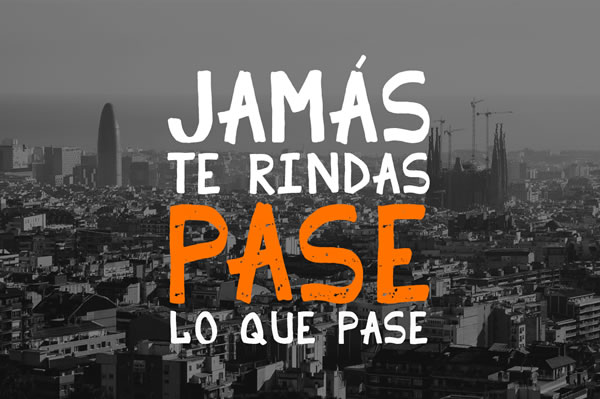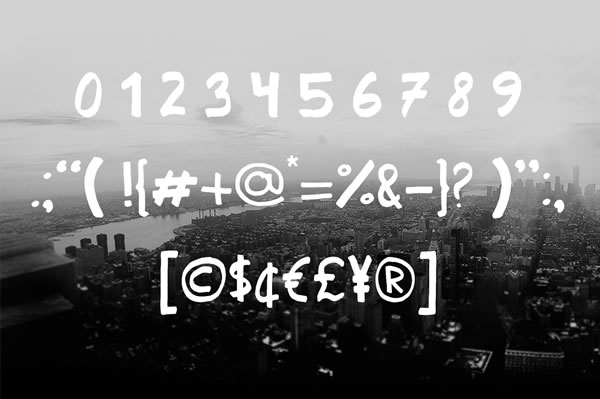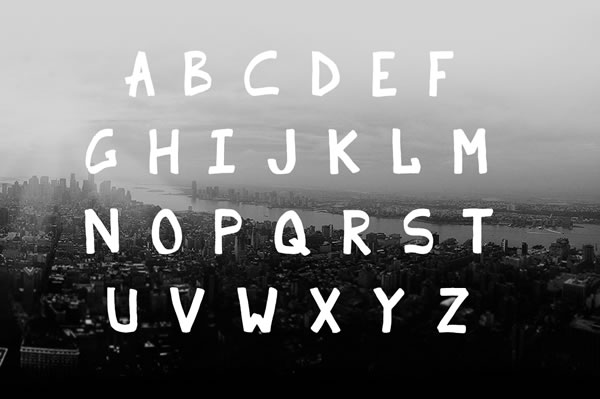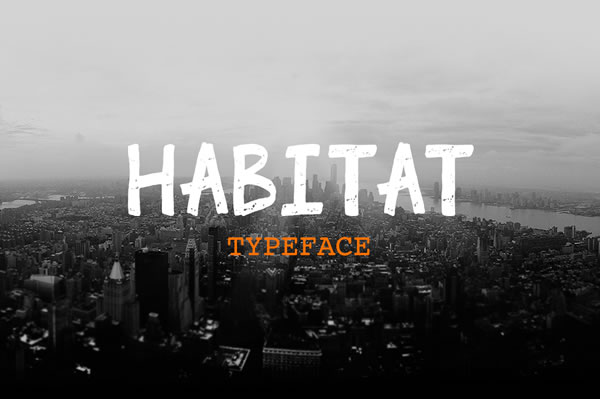
Introducing Habitat Font: A Modern Marker Font for Designers and Crafters
In the world of typography, fonts play a crucial role in conveying messages, expressing creativity, and setting the tone for a brand or design. For designers and crafters, finding the perfect font can be a daunting task, especially when looking for something modern, versatile, and attention-grabbing. This is where Habitat Font comes in – a stylish marker font that is sure to elevate your designs and crafting projects.
What is Habitat Font?
Habitat Font is a modern marker font designed to add a touch of sophistication and elegance to your designs. With its clean lines, subtle curves, and precise strokes, Habitat Font is perfect for a wide range of applications, from digital designs to handmade crafts. The font’s modern style makes it an excellent choice for designers and crafters looking to create fresh, contemporary looks.
Versions of Habitat Font
Habitat Font comes in two versions: Habitat Regular and Habitat Press. This allows designers and crafters to choose the version that best suits their needs and preferences.
Habitat Regular
The Habitat Regular font is the primary version of the Habitat Font family. It features a smooth, flowing style with subtle variations in line width, giving it a natural, hand-drawn feel. This version is perfect for designs that require a clean, elegant look, such as logos, headings, and titles.
Habitat Press
The Habitat Press font is a variation of the Habitat Regular font, with a slightly distressed look that resembles marker or pen writing. This version has a more relaxed, casual feel, making it ideal for designs that require a bit more character and personality, such as quotes, phrases, and short texts.
Key Features of Habitat Font
Habitat Font offers several key features that make it an attractive choice for designers and crafters:
- Modern style: Habitat Font boasts a fresh, contemporary look that is sure to make your designs stand out.
- Marker font: The font’s marker-like style gives it a unique, hand-drawn feel that adds character to your designs.
- Versatility: Habitat Font can be used for a wide range of applications, from digital designs to handmade crafts.
- Two versions: The font comes in two versions, allowing you to choose the one that best suits your needs.
Uses of Habitat Font
Habitat Font is a versatile font that can be used for various design and crafting projects, including:
- Digital designs: Use Habitat Font to create stunning digital designs, such as social media graphics, blog posts, and presentations.
- Handmade crafts: Add a touch of elegance to your handmade crafts, such as cards, scrapbook pages, and journal entries.
- Branding and marketing: Use Habitat Font to create eye-catching logos, headings, and titles for your brand or business.
Tips for Using Habitat Font
To get the most out of Habitat Font, here are some tips to keep in mind:
- Experiment with colors: Habitat Font looks great in a variety of colors, so don’t be afraid to experiment and find the perfect hue for your design.
- Mix and match: Combine Habitat Font with other fonts to create interesting and dynamic designs.
- Pay attention to spacing: Make sure to adjust the spacing between letters and words to ensure your design looks clean and balanced.
Habitat Font is a modern marker font that is sure to elevate your designs and crafting projects. With its clean lines, subtle curves, and precise strokes, Habitat Font is perfect for designers and crafters looking for a fresh, contemporary look. Whether you’re working on a digital design or a handmade craft, Habitat Font is a versatile and stylish choice that is sure to impress.